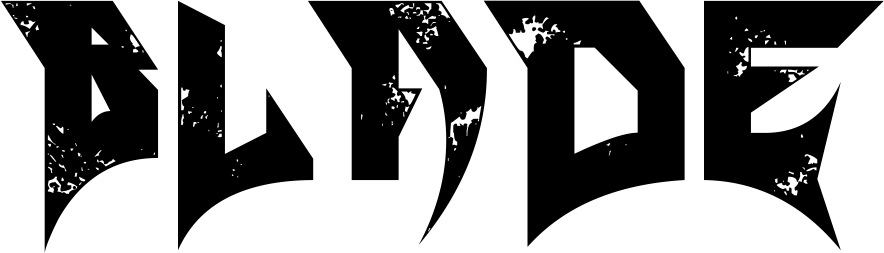
Blade Font
Blade is brutal, sharp, pointy, and worn. It says that it is a gothic font with rough and sharp edges. It comes with uppercase letters only in the character collection. It’s worth noting that it might not be that readabl…
Blade is brutal, sharp, pointy, and worn. It says that it is a gothic font with rough and sharp edges. It comes with uppercase letters only in the character collection. It’s worth noting that it might not be that readable.
Even though Blade lacks the numbers and general punctuation the catchy characters are appealing enough to win your viewers over. You can use this edgy tattoo font on movie posters, book covers, comic books, and so many more.